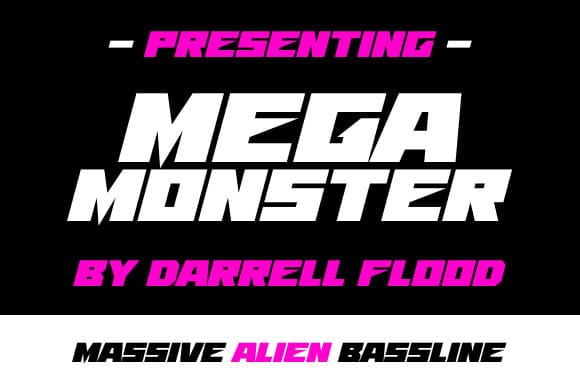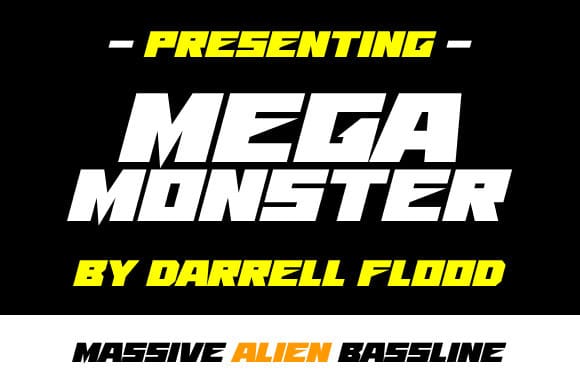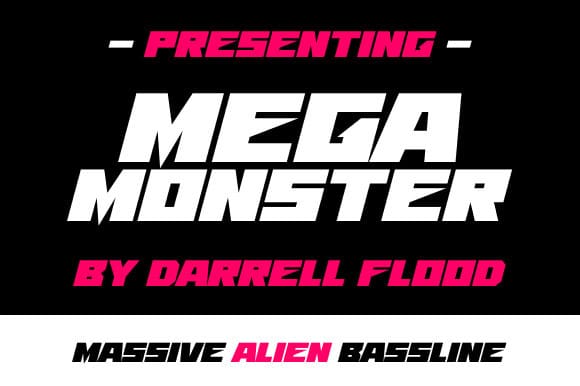
Mega Monster Font
Mega Monster Font is a hard hitting ultrabold futuristic font in a razor sharp, edgy style. Perfect for high impact presentations, scifi themes and modern music use!